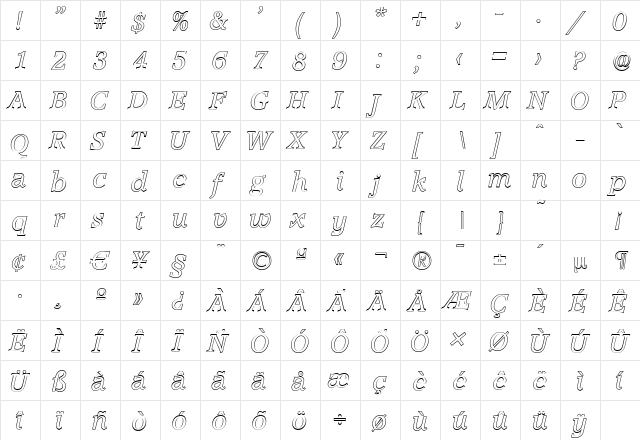
AccoladeOutline Italic
Design Context for AccoladeOutline Typeface
AccoladeOutline is built around its visual character rather than neutral utility — its distinctive forms are designed to make an impression at display sizes. The slanted form adds forward momentum and visual energy.
Font Pairing: Pair with a clean neutral sans-serif for body copy to let AccoladeOutline's character lead without overwhelming the composition.
Pro Tip: Use AccoladeOutline exclusively at display sizes — it was designed to be seen, not read at length. Let a neutral companion handle body copy.